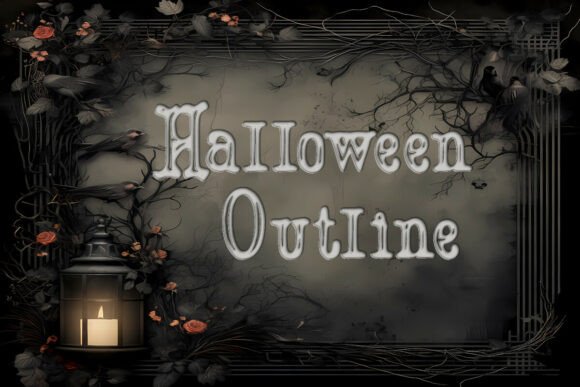
Unleash Your Creativity this Halloween Season
As the leaves start to change colors and the nights grow darker, the excitement of Halloween begins to build. For designers, this time of year presents the perfect opportunity to get creative and craft spooky, yet captivating visuals that leave a lasting impression on audiences. Whether you’re working on a T-shirt design, creating a themed sticker, or crafting a powerful brand identity, the right typeface can make all the difference.
That’s where the Halloween Outline Font comes in – a dynamic, striking typeface that breathes life into your creative projects. With its versatile design and endless possibilities, this font is the perfect tool for designers looking to add a touch of magic to their work.
Halloween Outline Font Key Features
- Unique Characteristics: Halloween Outline Font features a unique, spooky design with intricate details and textures, perfect for creating a haunted atmosphere in your designs.
- Legibility: Despite its intricate design, the font remains highly legible, even at small sizes, making it suitable for use in a variety of contexts, including body text and headlines.
Halloween Outline Font Review
I recently had the chance to work with the Halloween Outline Font, and I must say it’s a mixed bag. On one hand, there are some things that really shine ✨.
- Unique design: The font has a distinctive, spooky feel to it, perfect for Halloween-themed designs.
- Easy to read: Despite its playful, outline design, the font is surprisingly legible, even at smaller sizes.
- Great for titles: The font’s bold, eye-catching style makes it perfect for use as titles or headings in Halloween-themed projects.
However, there are some limitations that I want to point out ⚠️:
- Limited character set: The font’s character set is relatively limited, which can make it difficult to use in longer blocks of text.
- Not ideal for body text: While the font is great for titles, it’s not the best choice for body text, as it can be a bit too playful and distracting.
- Not scalable: At larger sizes, the font can become a bit too chunky and lose its charm.
Overall, I think the Halloween Outline Font is a fun and unique addition to any designer’s toolkit. While it may have some limitations, it’s perfect for Halloween-themed projects or designs where a bold, eye-catching font is needed.
The Halloween Outline Font is perfect for creating spooky and festive designs for Halloween-themed projects, such as:
- Halloween party invitations and decorations.
- Spooky social media graphics and posts.
- Haunted house